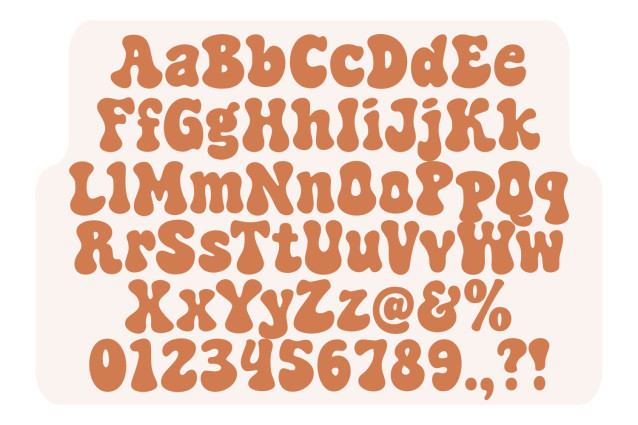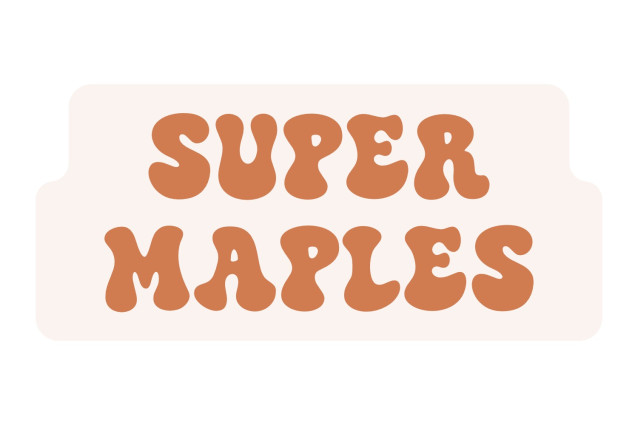
Super Maples Font
Super Maples Font is a fun and groovy display font. Use this funky font to add that special retro touch to any design idea you can think of!